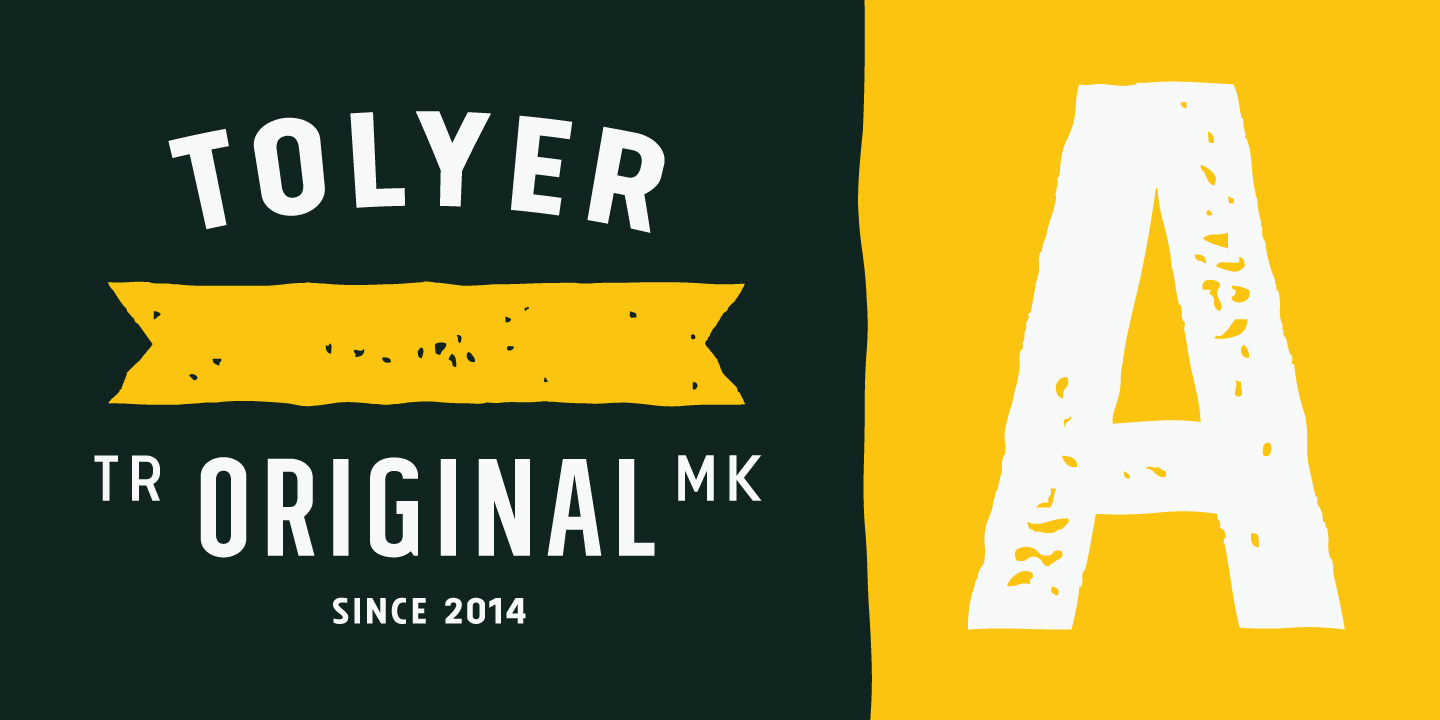
Tolyer Font Free Download is a clean and contemporary sans-serif typeface perfect for branding, website headers, editorial layouts, packaging design, and digital media. Its sleek lines and geometric shapes create a professional and polished look.
What makes this font so exciting is its versatility and modern aesthetic, which allows it to fit seamlessly into a variety of projects—from corporate designs to creative portfolios. Tolyer Font offers clarity and style in equal measure.
Tolyer Font includes multiple weights such as Light, Regular, Medium, and Bold, providing designers with flexibility to create effective typographic hierarchies and diverse design compositions.
Enhance your creative projects with the sharp and versatile charm of Tolyer Font Free Download, and communicate your message with confidence and sophistication.